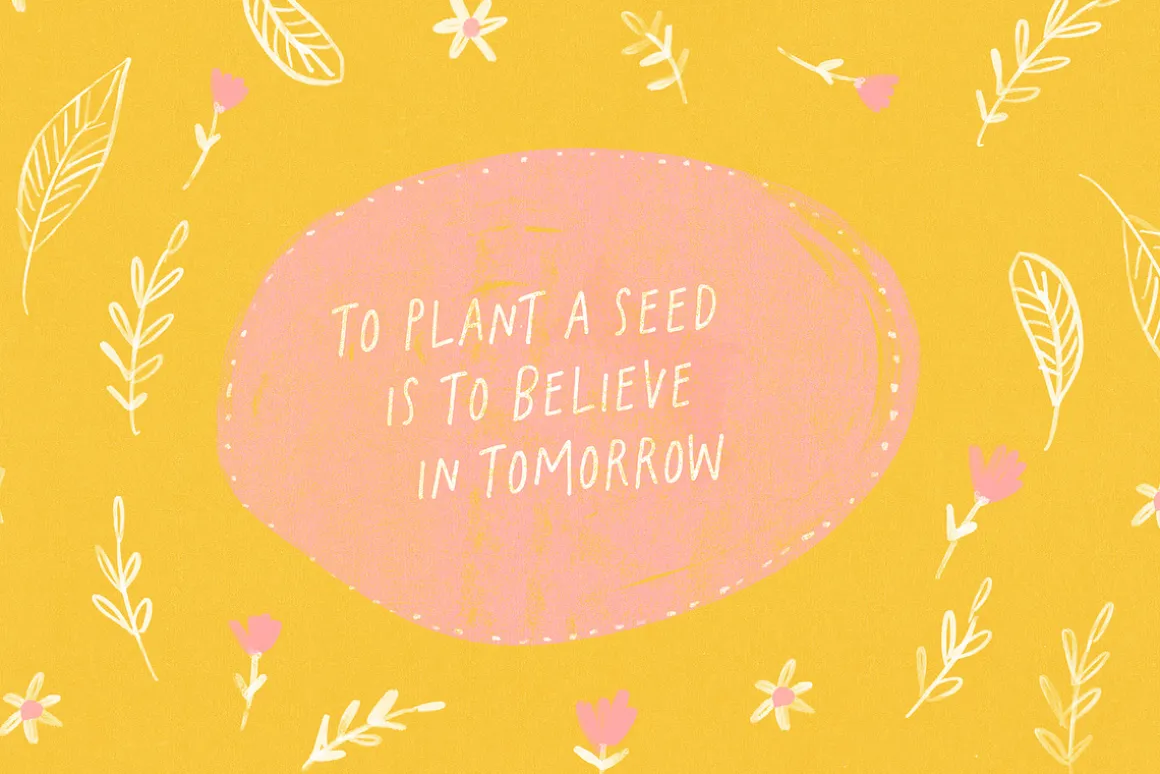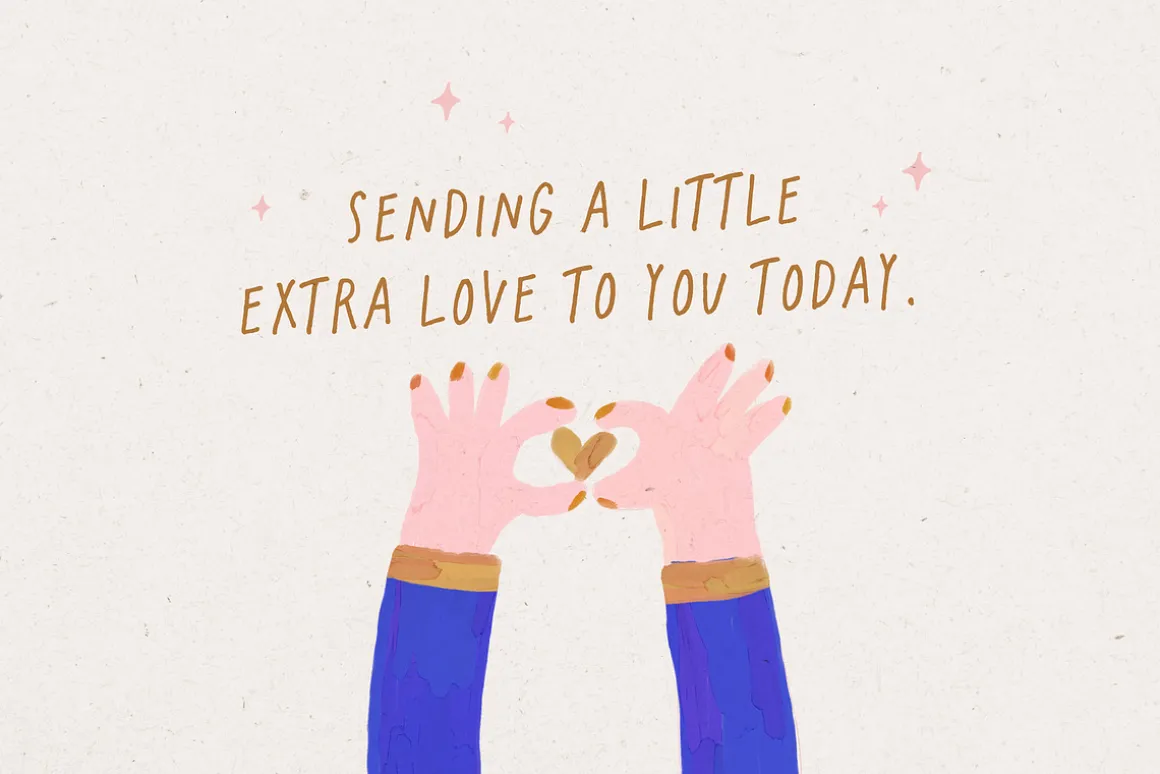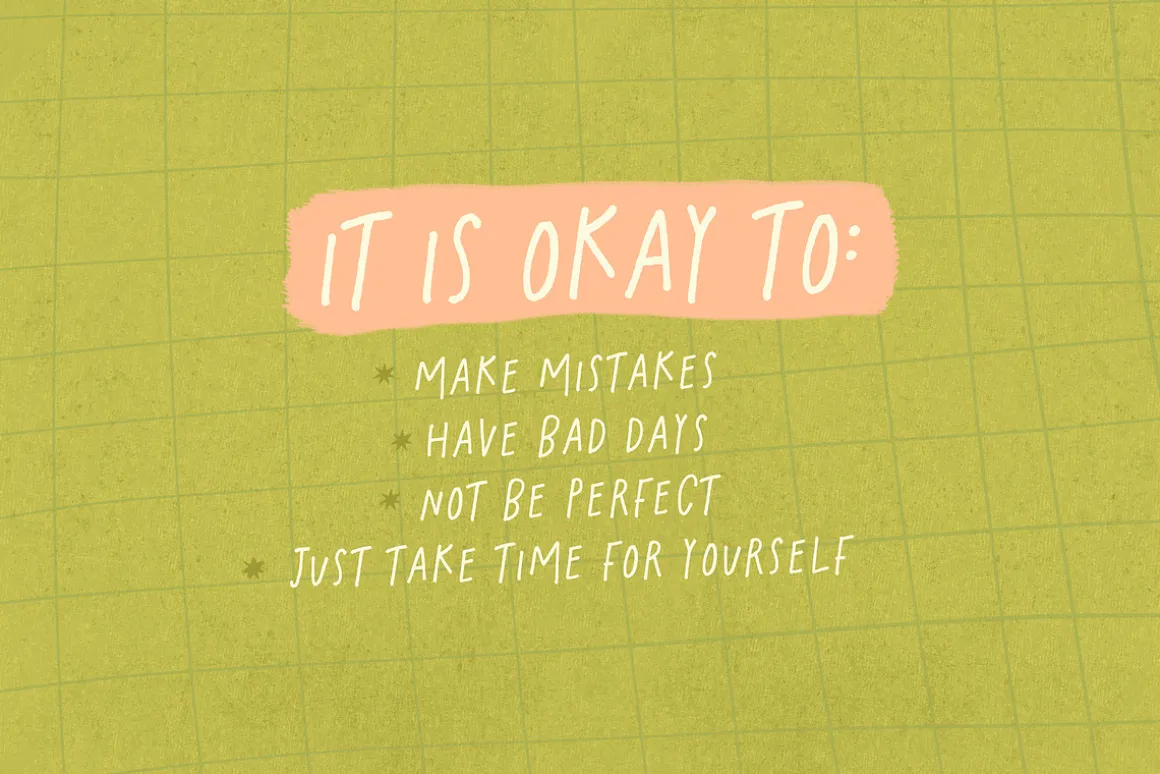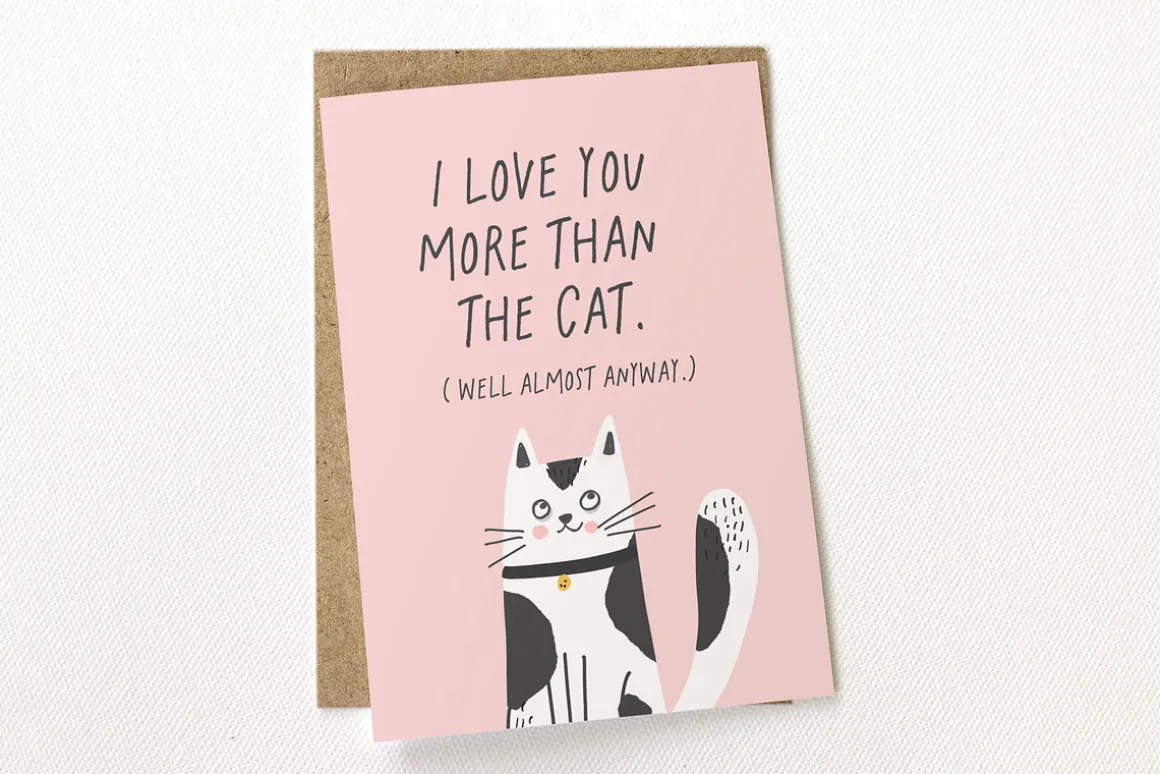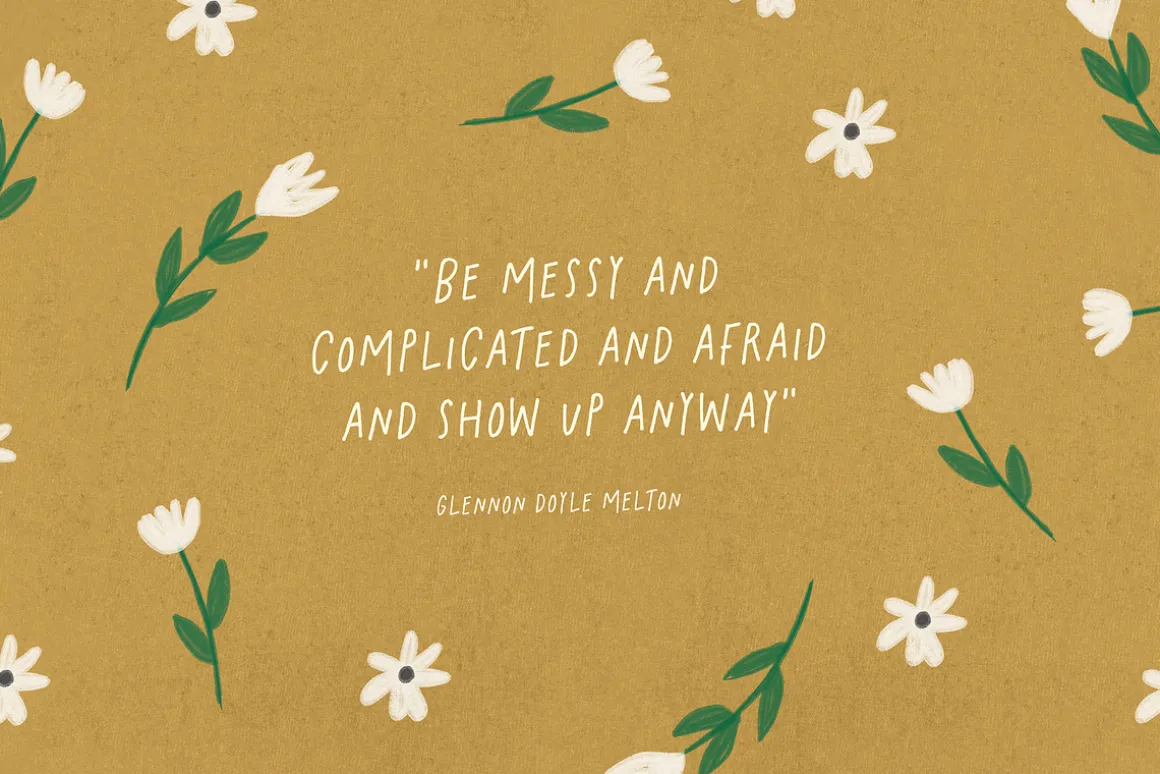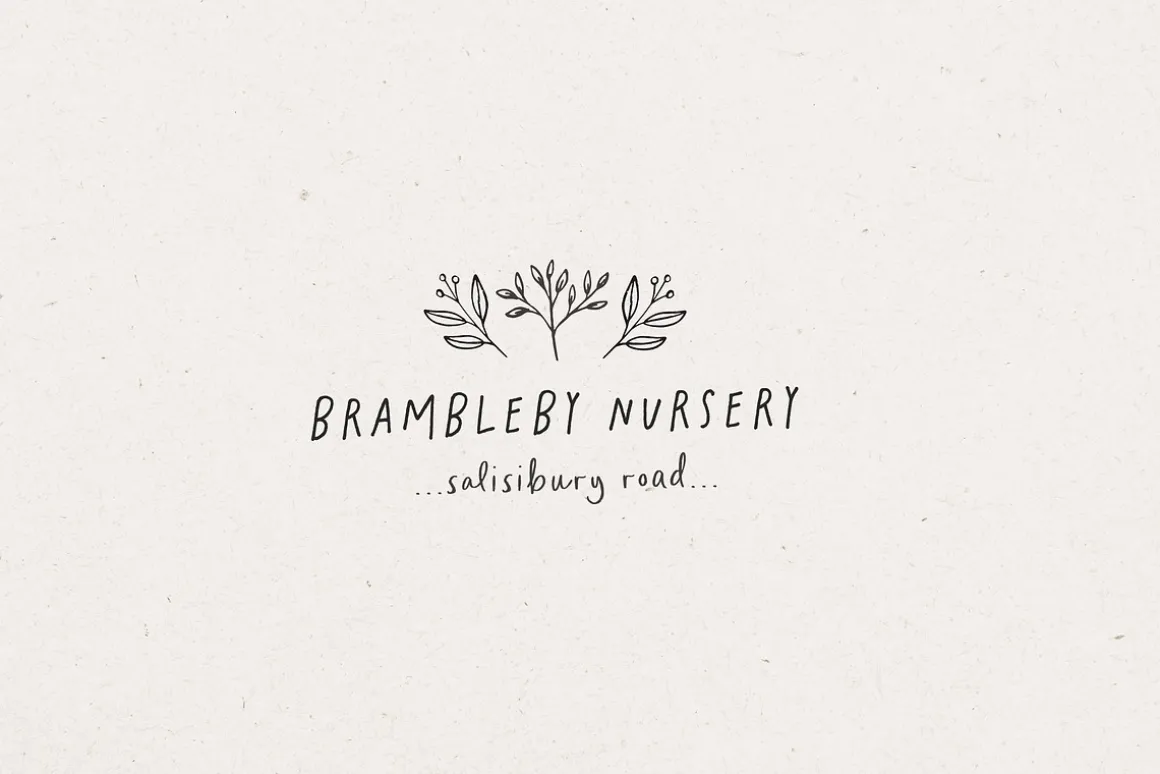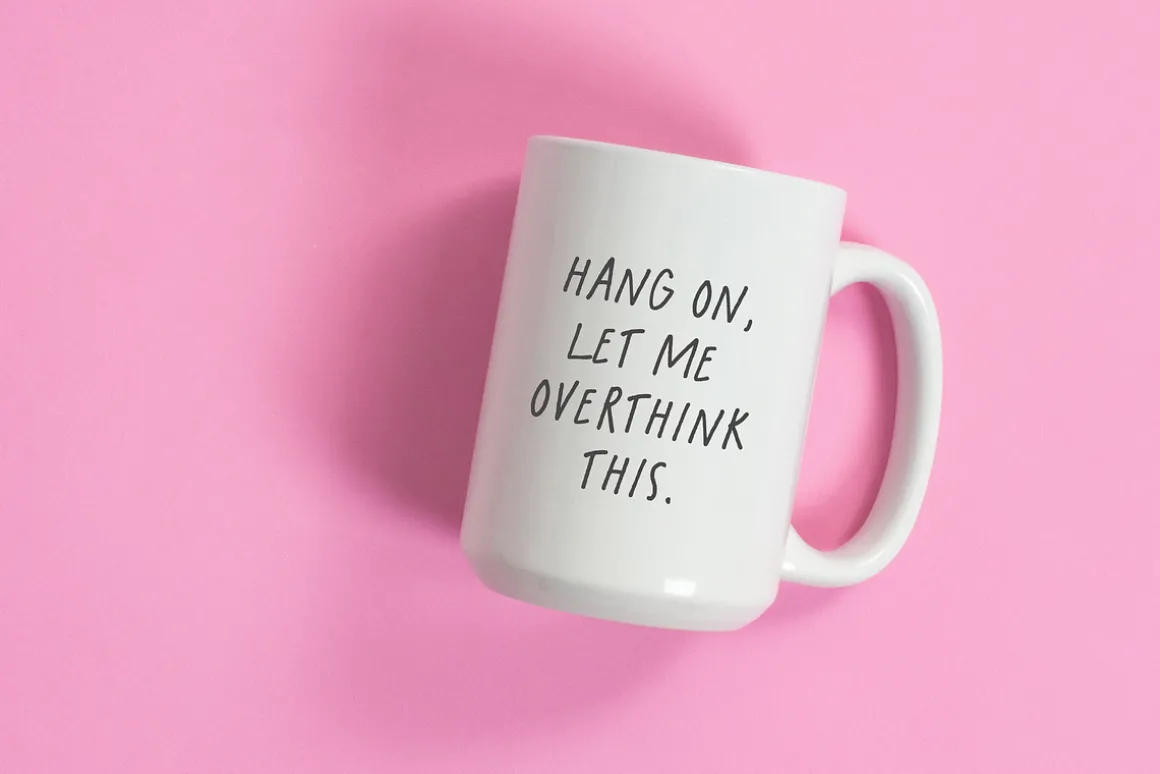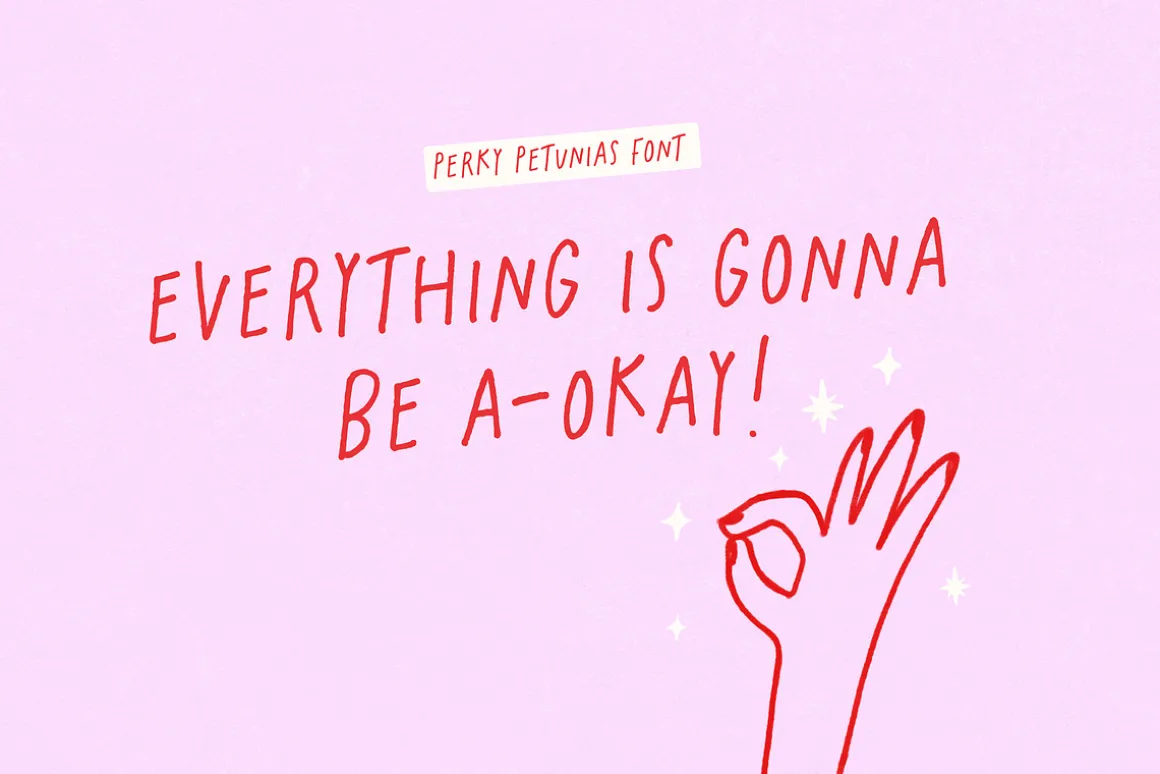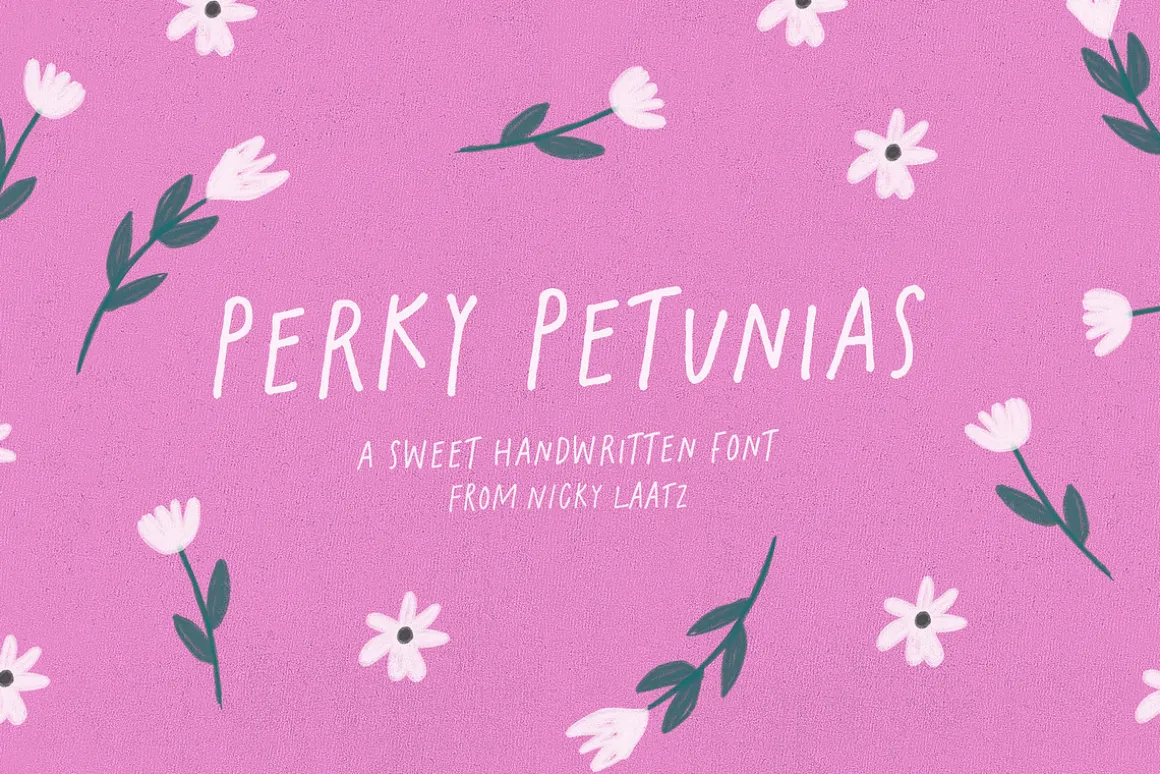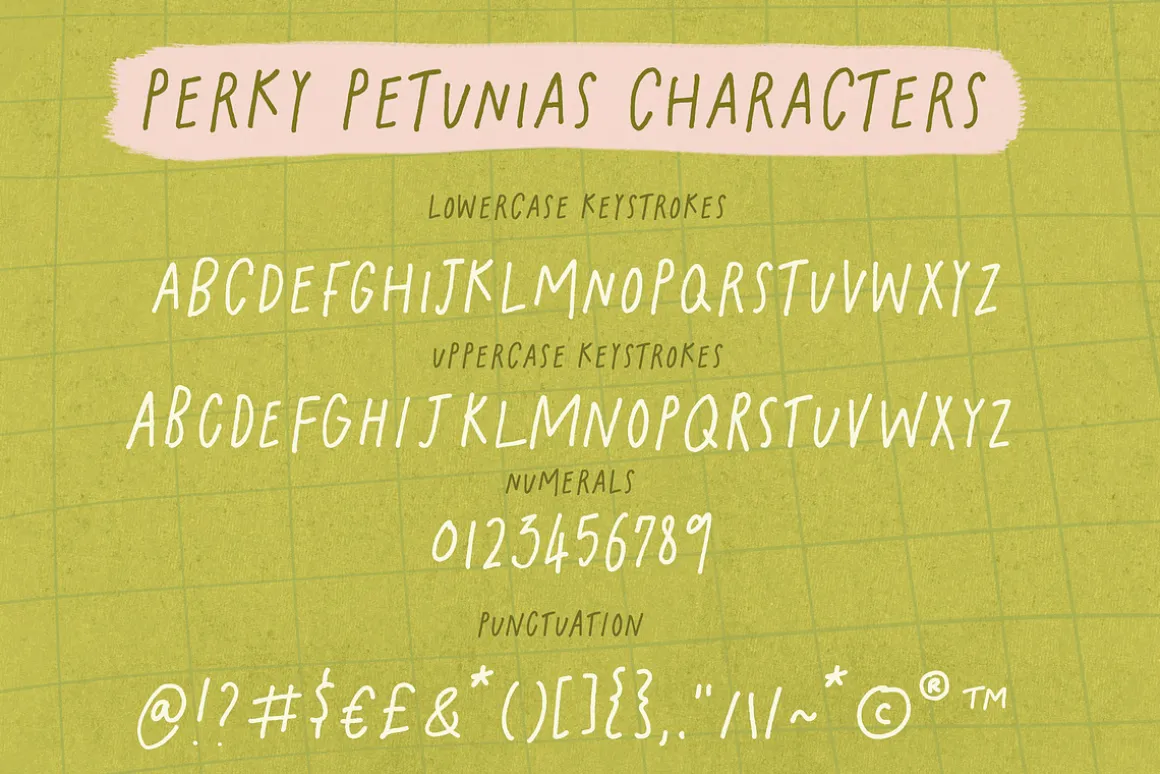
Say hello to Perky Petunias! A perky little handlettered font that’s super cute and bound to cheer anyone up 🙂
An all-caps letter set with varying upper and lowercase characters allows for a natural look when you switch between them.
A slightly bolder version is included also 🙂
Great for sweet greeting card and invites,for playful branding & quotes, for quiry packaging and so much more!